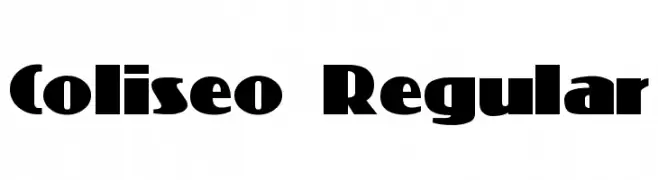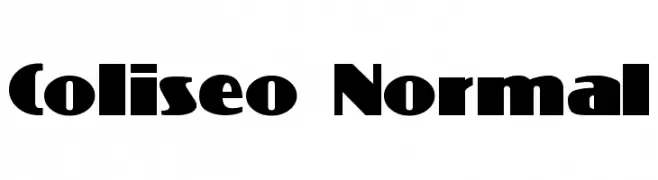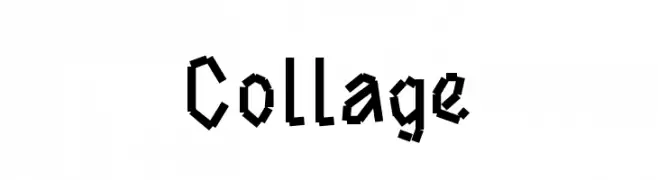
A modern, geometric sans-serif font with clean lines and excellent readability.
A modern, semi-bold sans-serif font with excellent readability and versatility.
A bold, dramatic font with strong, wide strokes and a slightly condensed appearance.
A graceful and elegant script font with flowing, cursive letterforms.
A jagged, edgy font with a playful, hand-drawn appearance.
A decorative and eclectic font with a collage-like mix of styles and embellishments.
A bold, geometric font with a futuristic, modular design.
A bold, geometric font with a blocky, uniform design.